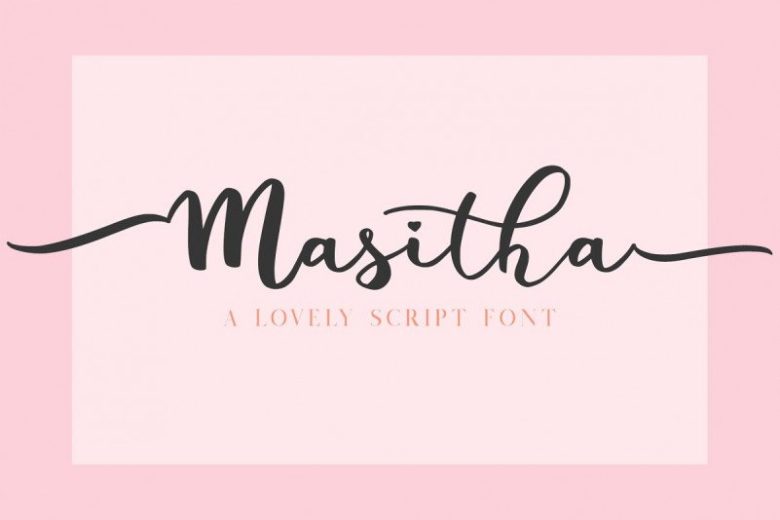
Masitha Script Font
This is a modern calligraphy typeface, perfect for adding a elegant and unique touch to your lettering projects and branding. Introducing Masitha Font. Masitha – A Lovely Script Font is an handwritten script font based on the expression of real handwriting. Masitha – A Lovely Script Font will work perfectly for fashion, e-commerce brands, trend blogs, wedding boutiques or any business that wants to appear upscale and chic.